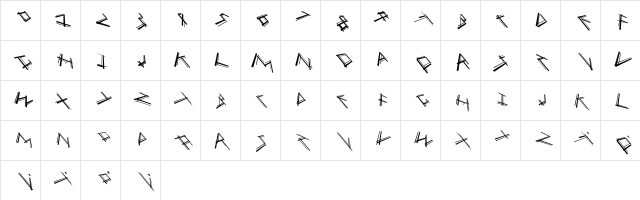
MouseStrokes3D Regular Font Preview
MouseStrokes3D Regular
Design Context for MouseStrokes3D Typeface
MouseStrokes3D is a composed and adaptable typeface that performs quietly and consistently across a wide range of design contexts.
Pro Tip: Use MouseStrokes3D in both headline and body roles to test its range before committing to a single application.